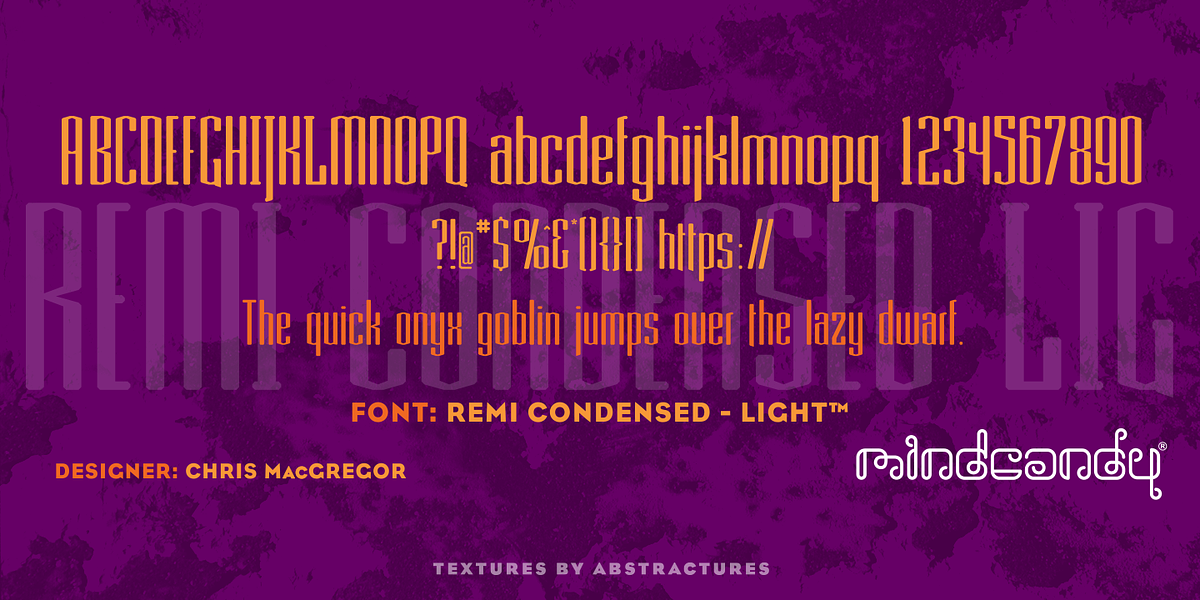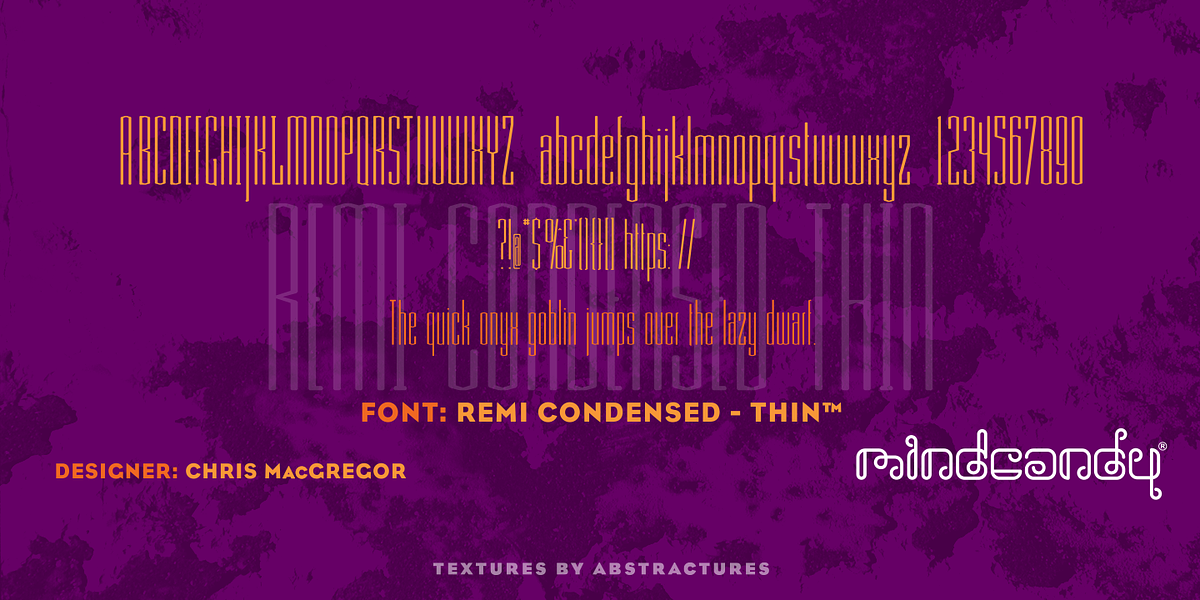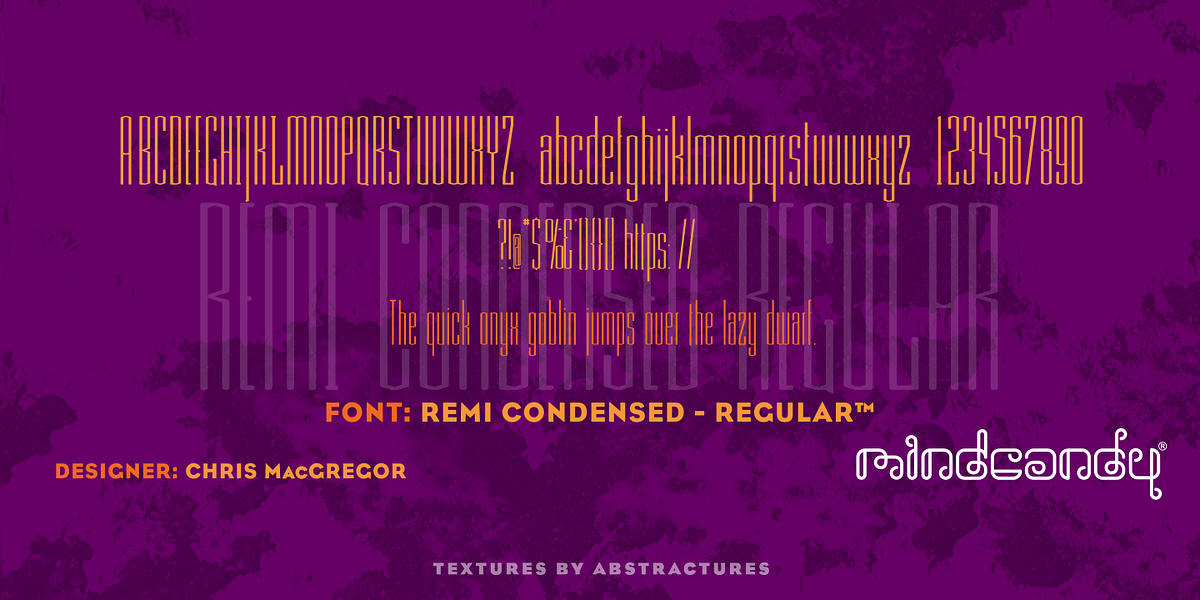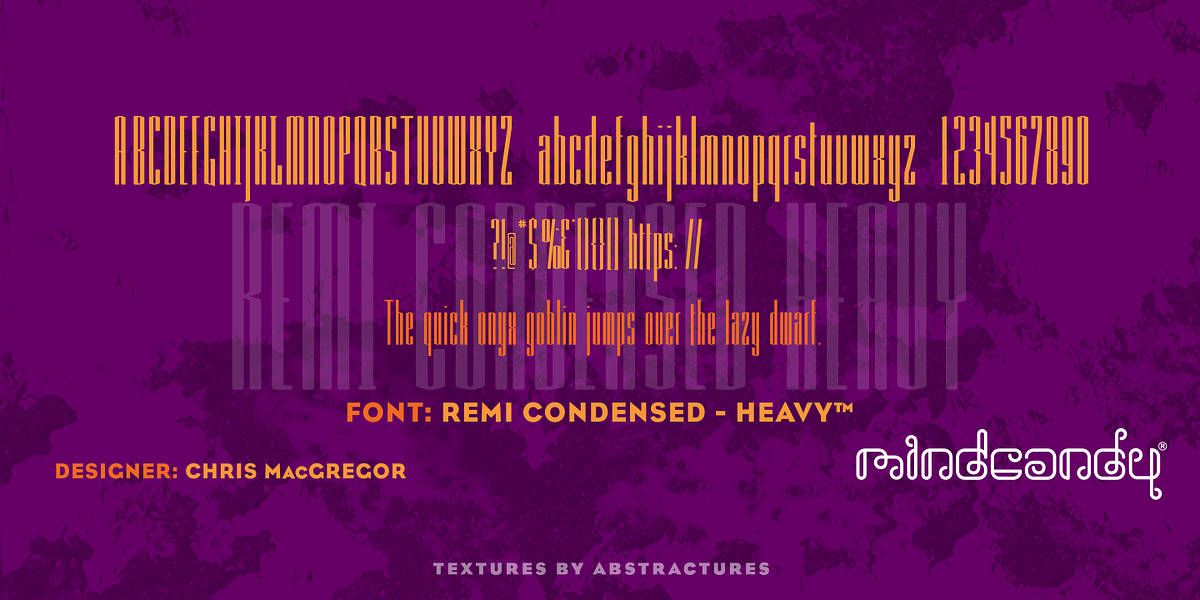
Remi Condensed™
This font is a modern geometric sans serif designed for impactful display use. Its bold and playful nature makes it suitable for headlines, branding, and advertising.